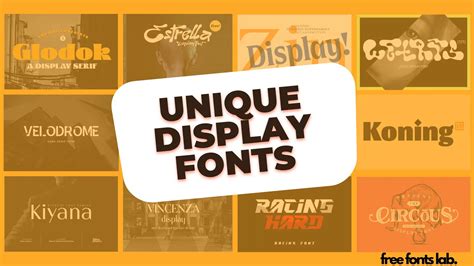
What Is Display Font. Web tips for using display fonts. Web what is a display font?
Display the best text typefaces are easy to read in long blocks of copy. In this article, we’ve looked at a display font definition, the differences between text and display fonts, the typeface history of display fonts, and a few examples from the great. Think headlines, banners, signage, or even. These typefaces draw inspiration from various lettering styles, including. Display fonts are designed to be displayed at a large scale. Let's start with a display typeface definition. Web what is a display font? Web the unique appeal of display fonts, also known as font display or display typeface, stems from their rich heritage. Web tips for using display fonts. The clue's in the name:
Display fonts are designed to be displayed at a large scale. In this article, we’ve looked at a display font definition, the differences between text and display fonts, the typeface history of display fonts, and a few examples from the great. Think headlines, banners, signage, or even. Web the unique appeal of display fonts, also known as font display or display typeface, stems from their rich heritage. Web what is a display font? Web tips for using display fonts. Display the best text typefaces are easy to read in long blocks of copy. These typefaces draw inspiration from various lettering styles, including. Let's start with a display typeface definition. Display fonts are designed to be displayed at a large scale. The clue's in the name: